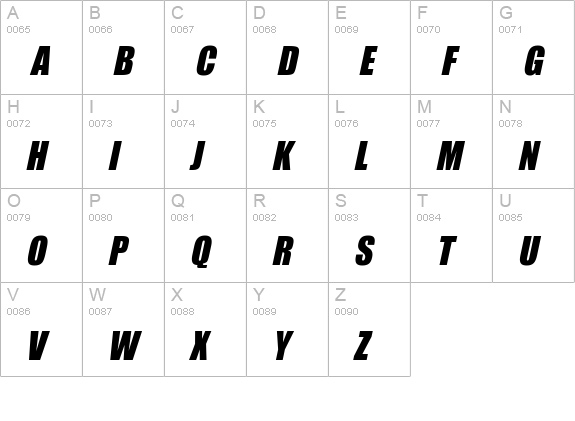
Billboard Italic is a distinctive, italic variant in the Billboard typeface family \xE2\x80\x94 well suited to design and typography projects.
Introducing Billboard Italic font - a sleek and modern typeface designed to make your text stand out on any design project. The italicized version adds a touch of elegance and sophistication to your words, making it perfect for headings, logos, and more. Its clean lines and stylish curves give a professional and polished look to any piece of text. The best part? Billboard Italic font is available for free download at FontsMarket.com. That's right, you can elevate your designs with this premium font without spending a dime. Don't miss out on this opportunity to enhance your projects with the timeless appeal of Billboard Italic font. Download it today and start creating stunning visuals that will leave a lasting impression.